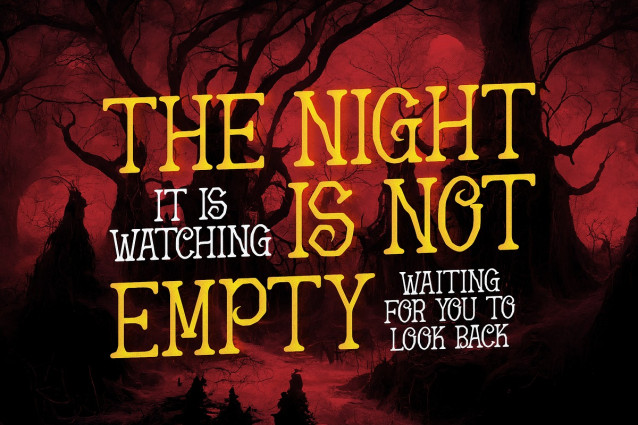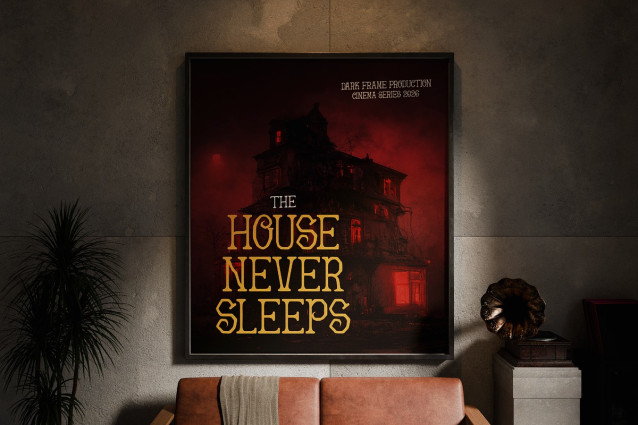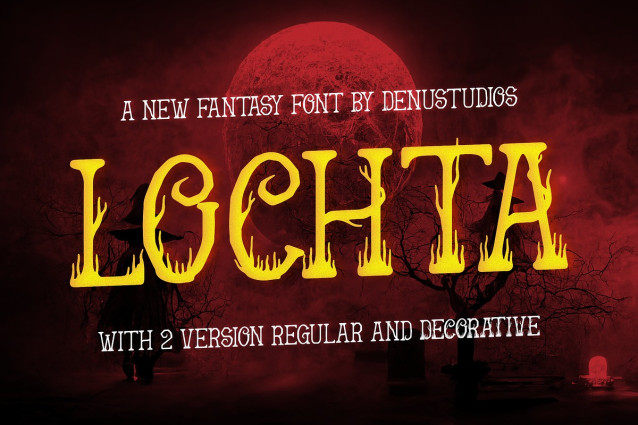
Lochta Font
Lochta Font | New Fantasy Font, from Denustudios, suitable for any projects such as: logos, branding projects, homeware designs, product packaging, mugs, quotes, posters, shopping bags, t-shirts, book covers, name card, invitation cards, greeting cards, label, photography, watermark, special events, and all your other lovely projects that need a Horror taste.